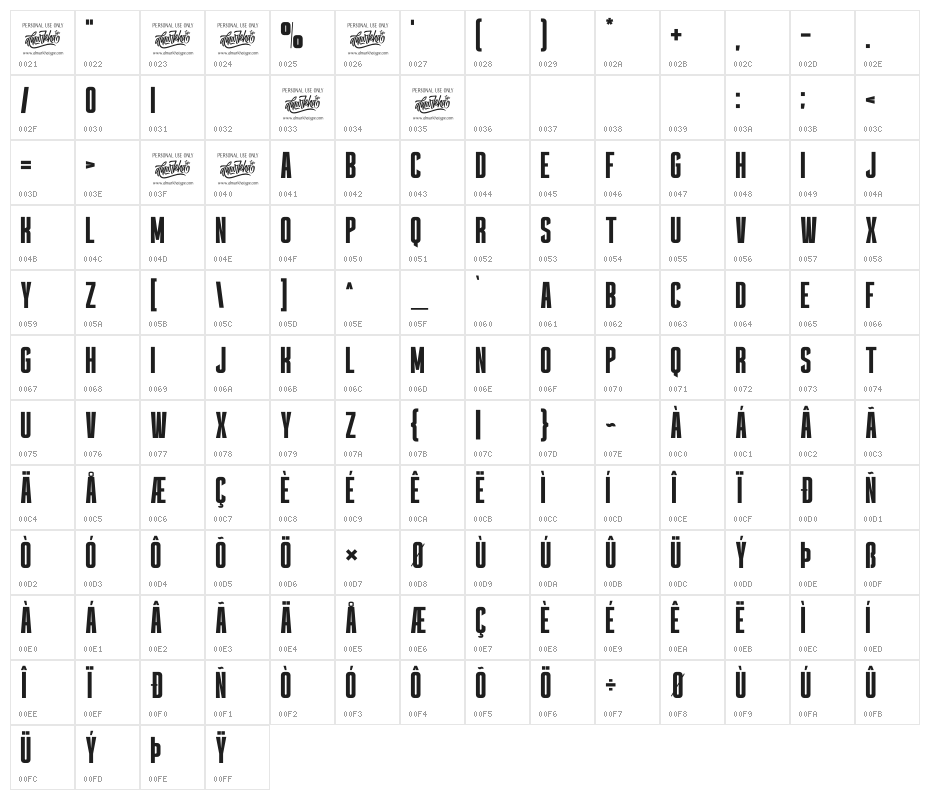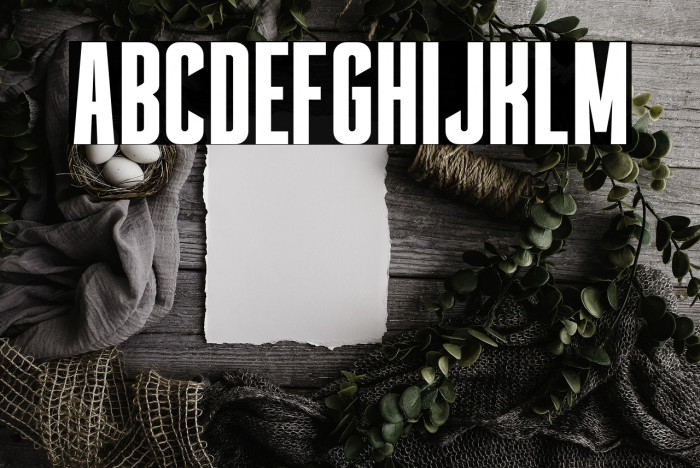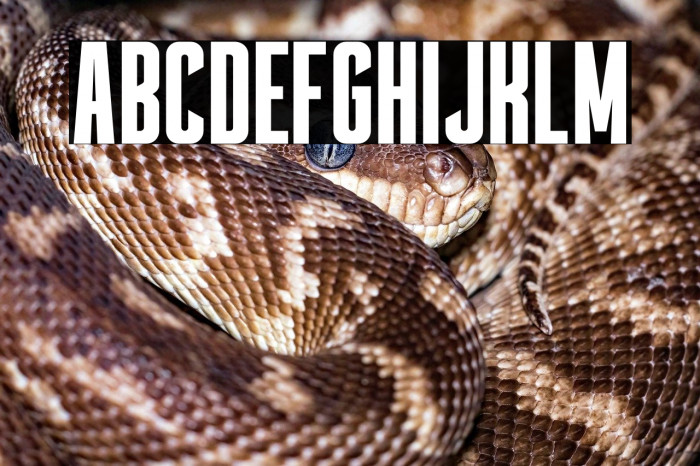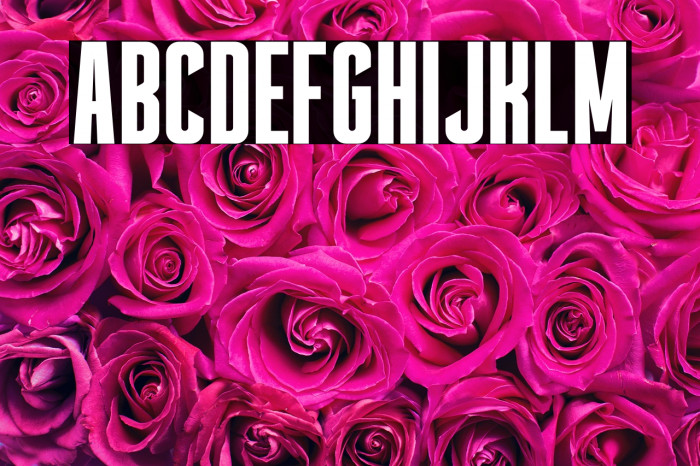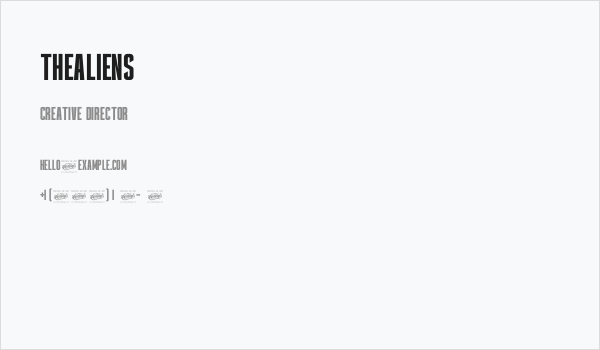
thealiens Font
thealiens Description
This font features a bold and striking design with tall, narrow letters that convey a sense of strength and modernity. The uppercase letters are particularly elongated, giving the font a commanding presence. The overall style is clean and minimalistic, with consistent stroke widths that maintain a uniform appearance. The font includes a full set of uppercase letters, numerals, and a selection of special characters, making it versatile for various design needs. Its boldness and clarity make it suitable for impactful headlines and attention-grabbing text.
| Proposed Projects | Ideal for posters, headlines, branding, and advertising where a strong visual impact is desired. |